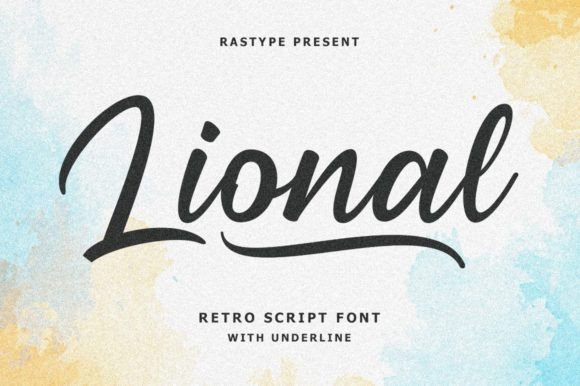
Introducing the Lional Font, the epitome of script elegance and vintage charm! Crafted by the talented rastype1010, this retro script font with a stunning underline is the ultimate choice for those seeking to add a touch of nostalgia to their designs. Whether you're working on a captivating poster, a mesmerizing book cover, or a dreamy wedding invitation, Lional Font is here to make your creative visions come to life.
Indulge in the timeless appeal of Lional Font as it effortlessly transports you to the golden era of design. Its graceful curves and intricate details evoke a sense of romance and sophistication, captivating anyone who sets eyes upon it. With its rich collection of characters, this font offers versatility like no other, allowing you to effortlessly express your unique personality and style.
Why settle for ordinary when you can embrace the extraordinary? Lional Font effortlessly stands out from the crowd, leaving a lasting impression on anyone who encounters it. Let your words dance across the page, beautifully adorned with this exquisite script font. Your message will be elevated to new heights, leaving your audience mesmerized and captivated.
Unleash your creativity and unlock a world of possibilities with Lional Font. Its flawless execution and attention to detail make it the perfect choice for those seeking to create stunning designs that leave a lasting impact. Whether you're a seasoned designer or a novice exploring the world of typography, this font is your ultimate companion.
Embrace the allure of the past, while seamlessly blending it with the modern aesthetic. Lional Font effortlessly bridges the gap between nostalgia and contemporary design, making it a must-have for anyone looking to add a touch of vintage flair to their creations.